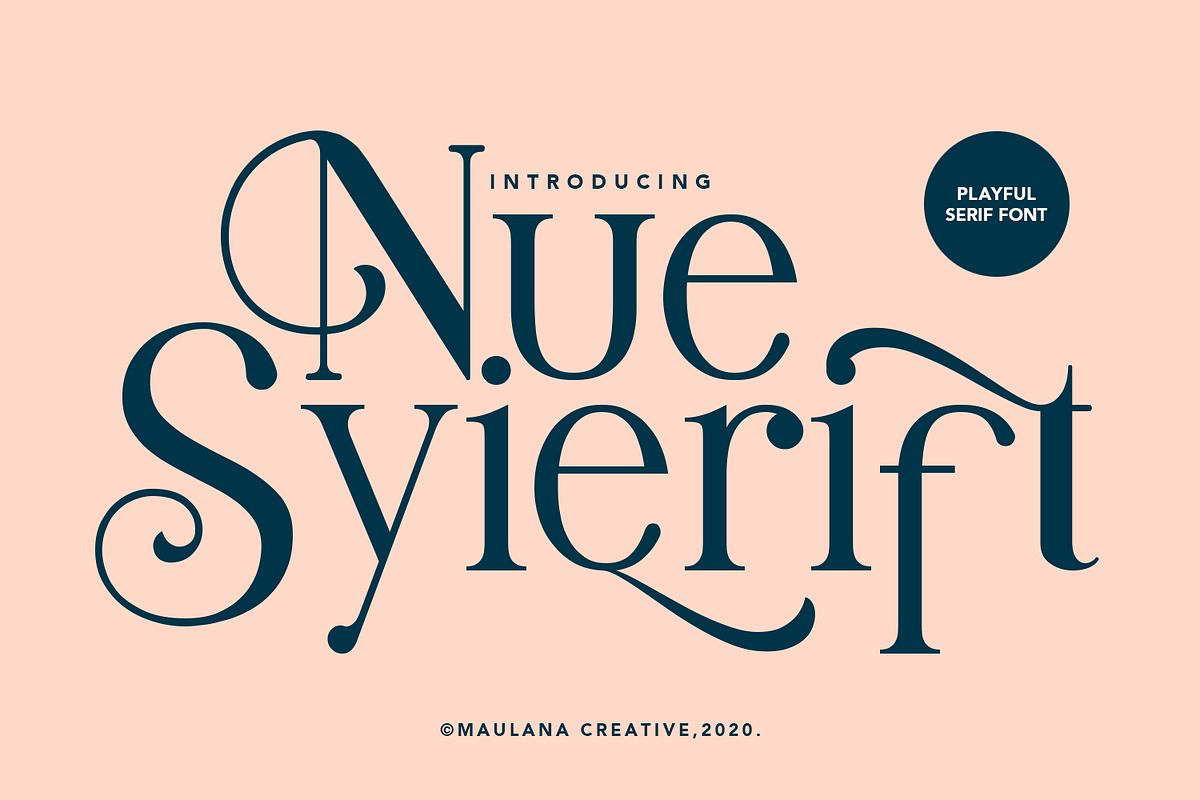
Nue Syierift – Playful Serif Font Free Download
You must purchase this font for commercial use. However, you can download Nue Syierift – Playful Serif Font Free Download for testing purposes. Nue Syierift is a unique, playful serif font with a modern twist. Combining classic serif features with a fun, quirky design, this font is perfect for logos, branding, invitations, posters, and any creative project that requires a bold and lively aesthetic.
The distinctive letterforms of Nue Syierift make it ideal for projects that need to stand out with personality and charm. Whether you’re creating a youthful brand, designing an event poster, or crafting a playful social media graphic, this font brings a modern, fun twist to your typography.